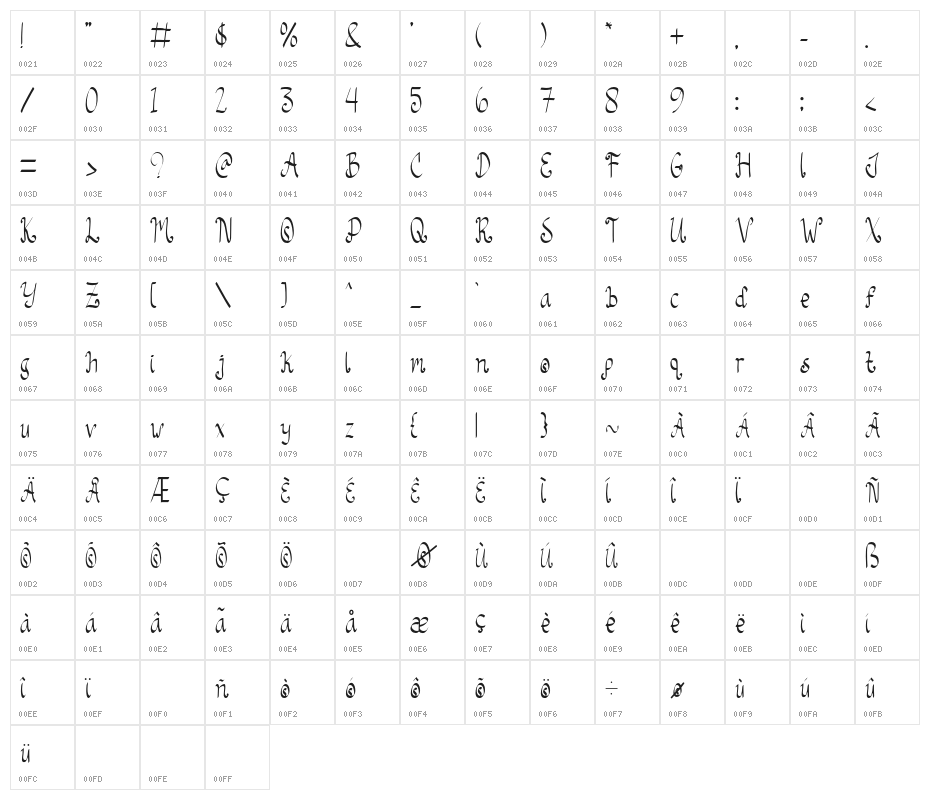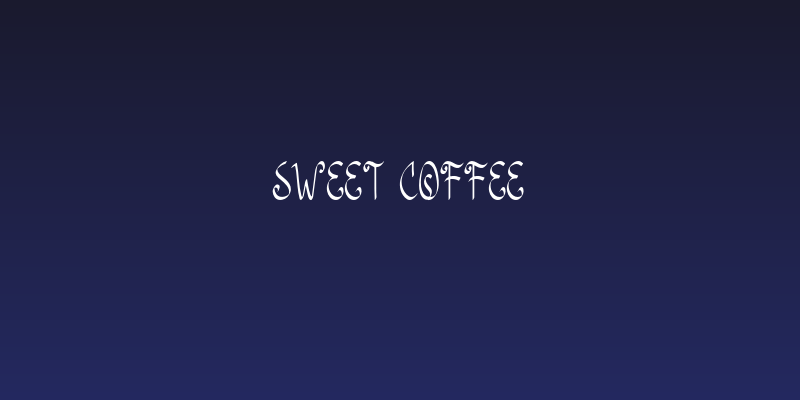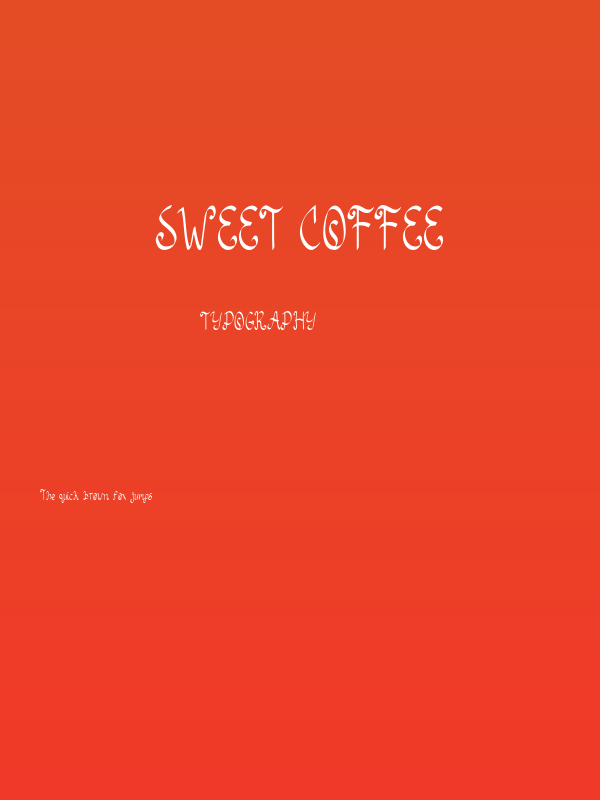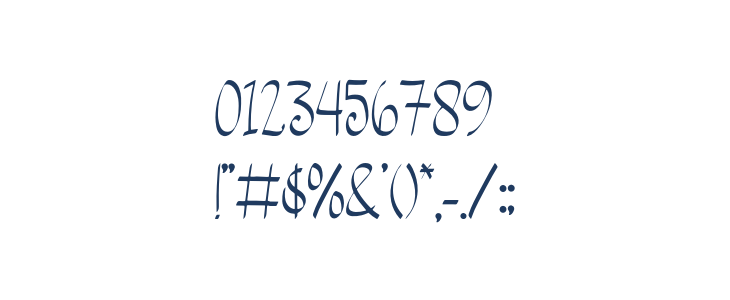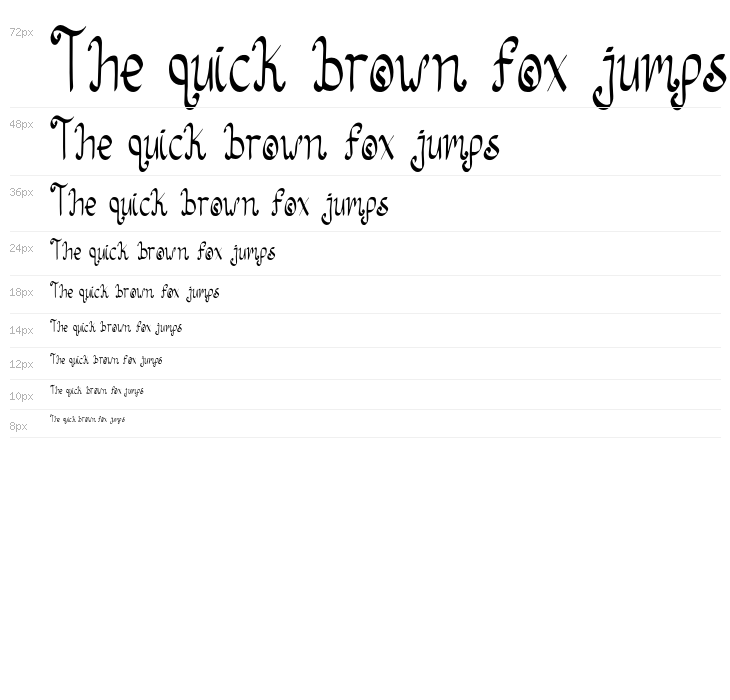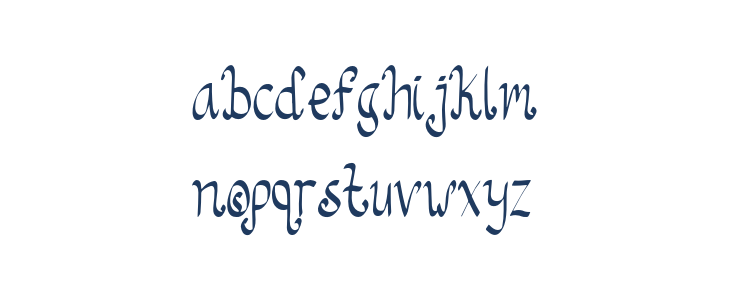
Sweet Coffee Font
Sweet Coffee Description
This font features a whimsical and playful style, characterized by its flowing, cursive-like forms. The letters have a hand-drawn appearance with varying stroke thickness, giving it a lively and dynamic feel. The uppercase letters are tall and slightly narrow, while the lowercase letters maintain a consistent height, adding to the font's charm. The numerals and special characters follow the same playful aesthetic, making the font suitable for creative and informal applications. Its unique style is perfect for projects that require a touch of personality and flair.
| Proposed Projects | Ideal for greeting cards, invitations, children's books, and playful branding. |